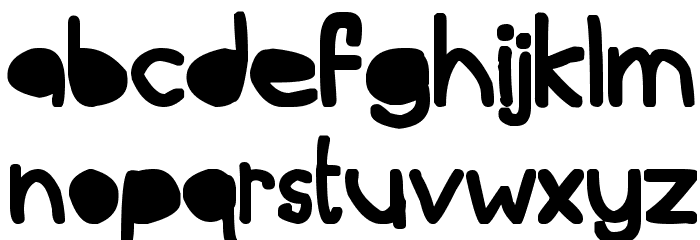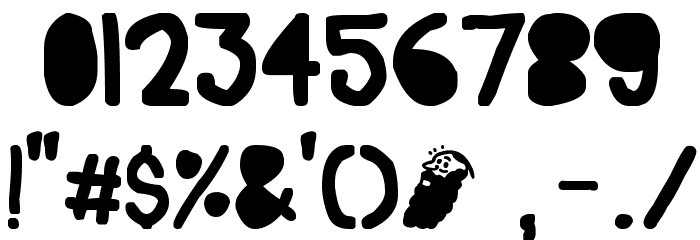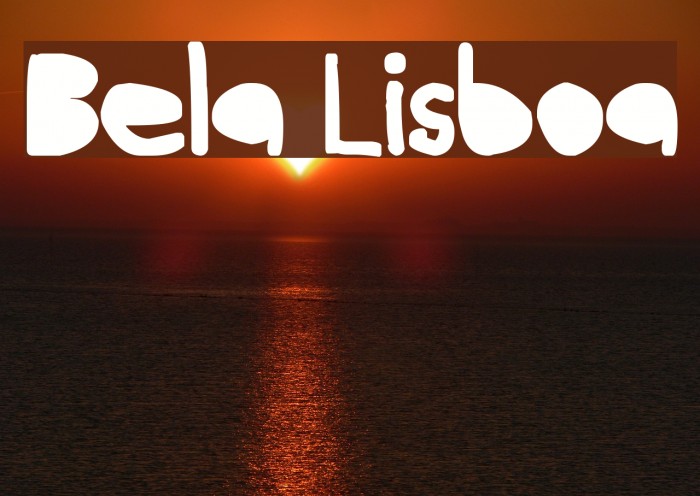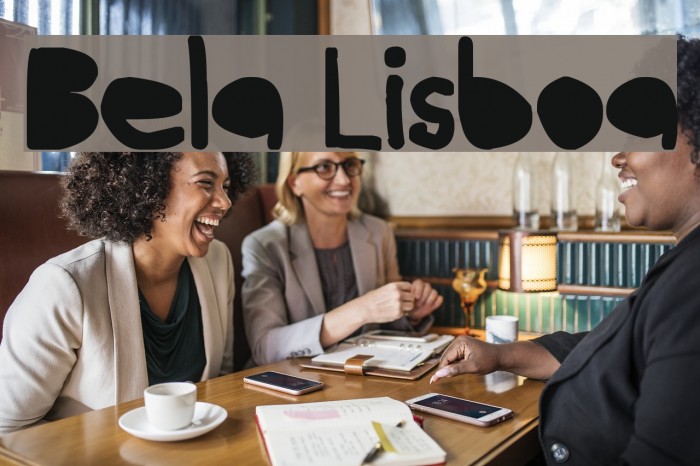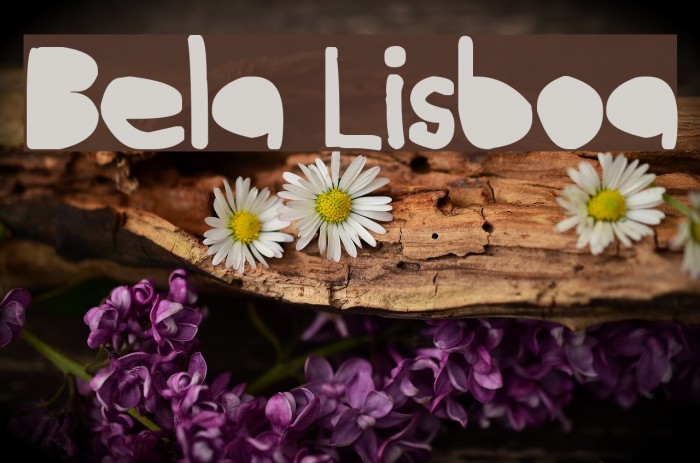
Bela Lisboa Font
This font features a playful and bold style with a hand-drawn appearance. The characters are rounded and slightly irregular, giving them a whimsical and friendly feel. The uppercase letters are bold and prominent, while the lowercase letters maintain the same playful aesthetic. Numbers and special characters are consistent with the overall style, adding to the font's cohesive look. The font's unique character shapes make it stand out, ideal for projects that require a touch of creativity and fun.
A playful, hand-drawn font with bold, rounded characters.
- Proposed Projects: Ideal for children's books, playful branding, greeting cards, and creative posters.